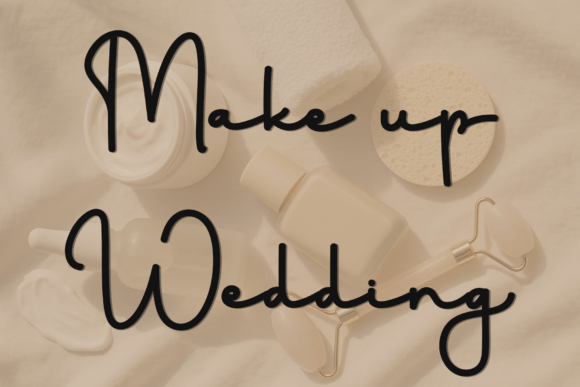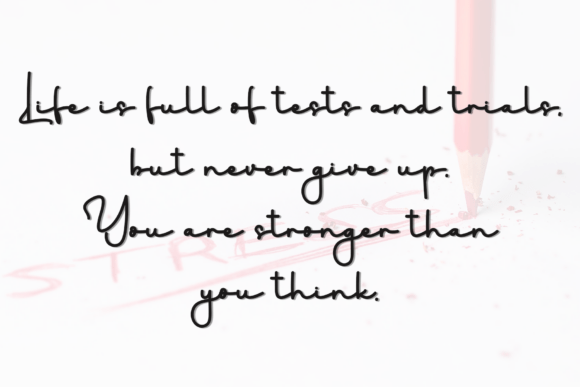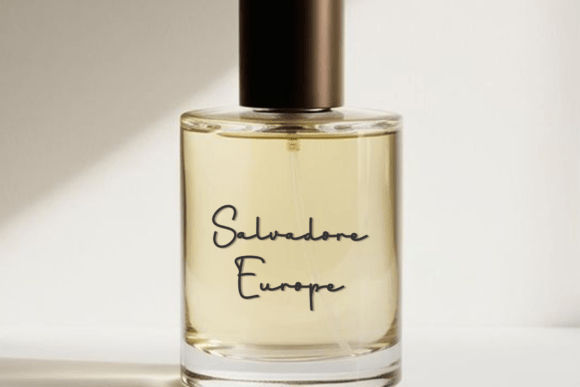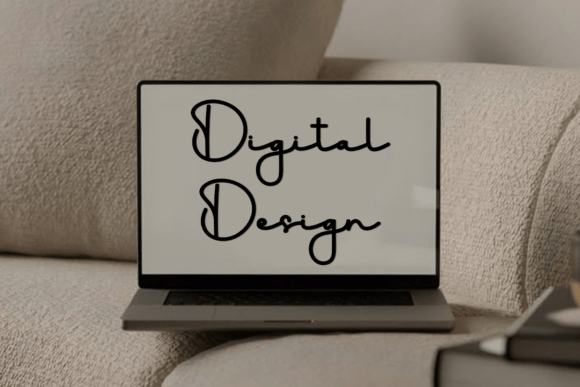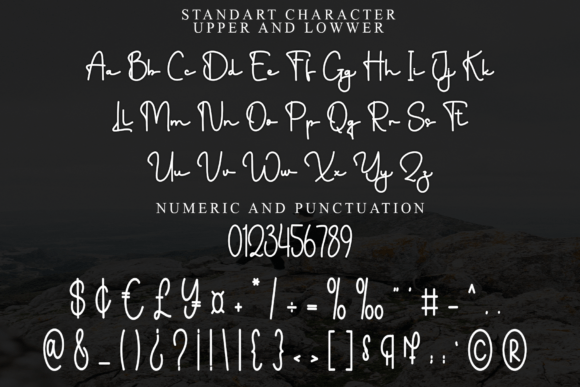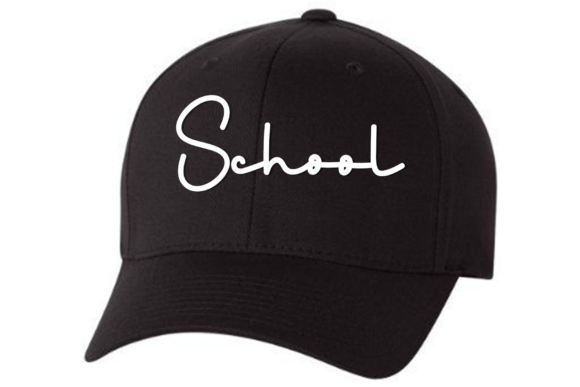
Discover the Beauty of Harish Font: Elevate Your Designs with a Unique Touch
In the world of typography, a font can make all the difference in the success of a design project. Whether you’re a professional designer, a crafty DIY enthusiast, or a creative entrepreneur, finding the right font can be a daunting task. That’s where Harish Font comes in – a stunning, eye-catching font that adds a soft, unique touch to any design. In this article, we’ll explore the distinctive features of Harish Font, its versatility, and compatibility, making it an ideal choice for a wide range of creative projects.
The Distinctive Character of Harish Font
Harish Font boasts distinctive strokes that give it a special character, making it both meaningful and versatile. Its unique design ensures that your text stands out from the crowd, adding a touch of personality to your designs. Whether you’re working on a logo, a brochure, or a social media post, Harish Font’s distinctive character will help you create a lasting impression.
A World of Creative Possibilities
With a wide range of characters, Harish Font is perfect for various design projects, crafts, and creative works. Its natural font style makes it an excellent choice for:
- Posters, flyers, and brochures
- Craft projects, such as handmade cards and invitations
Enhance Your Designs with Harish Font
Harish Font has the power to elevate your designs, making them appealing to a wide range of audiences across different artistic and creative fields. Its soft, unique touch adds a touch of sophistication and elegance, making it perfect for:
- Fashion and beauty brands
- Food and beverage companies
- Travel and tourism businesses
- Art and design studios
Harish Font is a beautiful and eye-catching font that can add a unique touch to your designs. Its distinctive strokes, versatility, and compatibility make it an excellent choice for a wide range of creative projects. Whether you’re a designer, crafter, or entrepreneur, Harish Font is sure to elevate your designs and make them stand out from the crowd. So why wait? Discover the beauty of Harish Font today and take your designs to the next level!